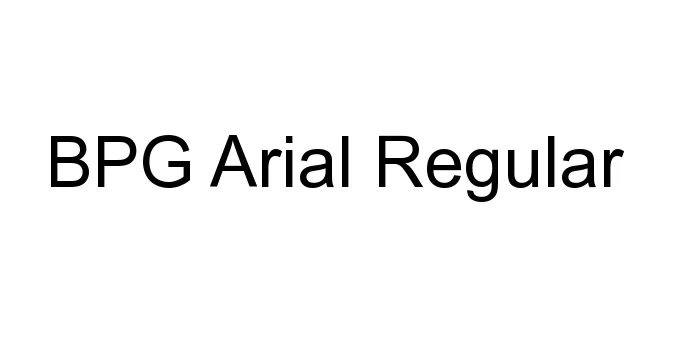
BPG Arial Regular
Designed by Besarion Paata Gugushvili (BPG InfoTech)
BPG Arial Regular is a versatile sans-serif typeface specifically designed to support the Georgian alphabet alongside Latin and Cyrillic characters. Developed by the renowned designer Besarion Paata Gugushvili, it was created to provide a clean, modern, and highly legible alternative to the standard Arial font, specifically tailored for the digital landscape and linguistic needs of Georgia.
This font is widely recognized for its balanced proportions and neutral aesthetics, making it a staple in Georgian web design and professional document formatting. Over the years, BPG Arial Regular has become one of the most widely used fonts in the region, effectively bridging the gap between traditional script forms and contemporary functional design requirements.
BPG Arial Regular Best Uses
Excellent legibility for Georgian-language websites and user interfaces.
Provides a professional appearance for reports, letters, and business spreadsheets.
Clear letterforms make it perfect for mobile apps and software dashboards.
Highly readable in print and digital formats for textbooks and instructions.